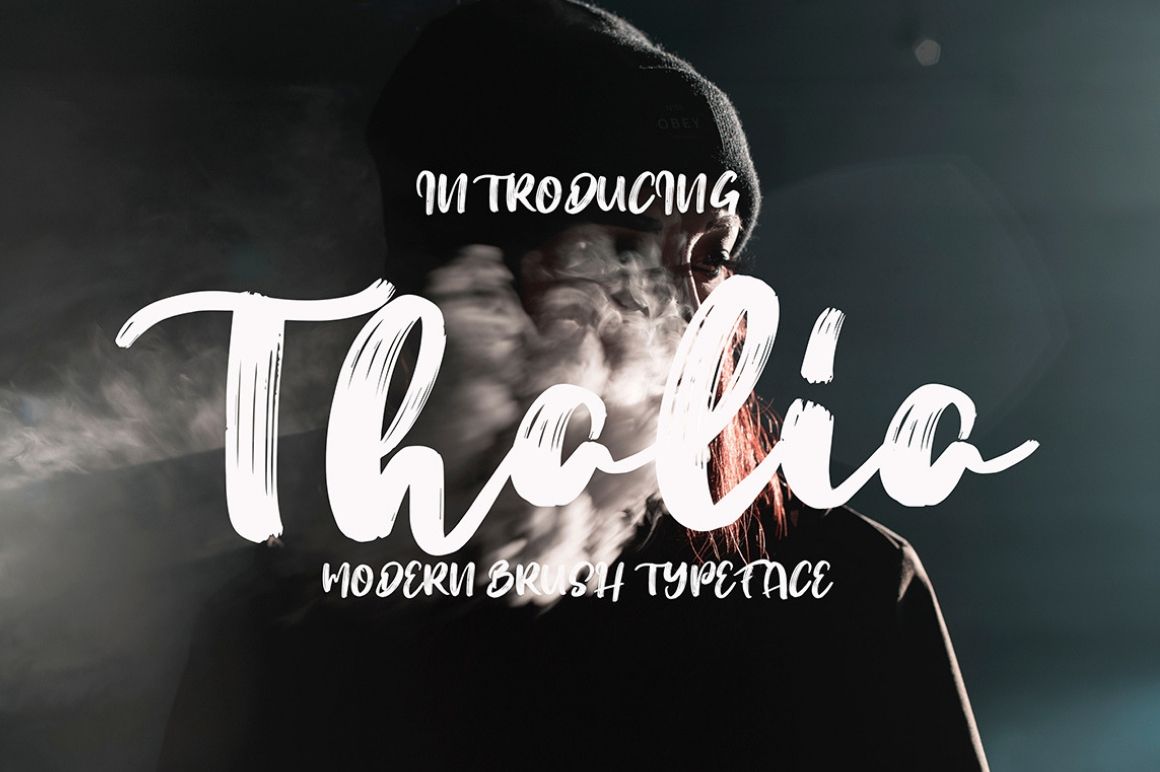
Free Thalia Font
Thalia, a free font for commercial use is a display font with a modern style. This font is perfect for a variety of projects like – quotes, logo, blog header, poster, wedding, banding, fashion, apparel, letter, invitation, stationery, etc..
Preview Of The Free Thalia Font: